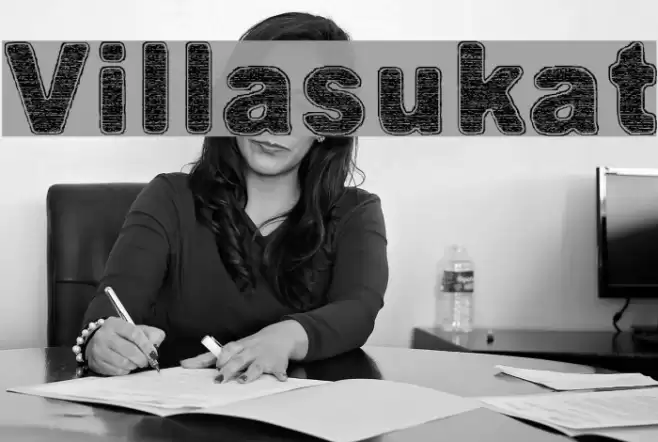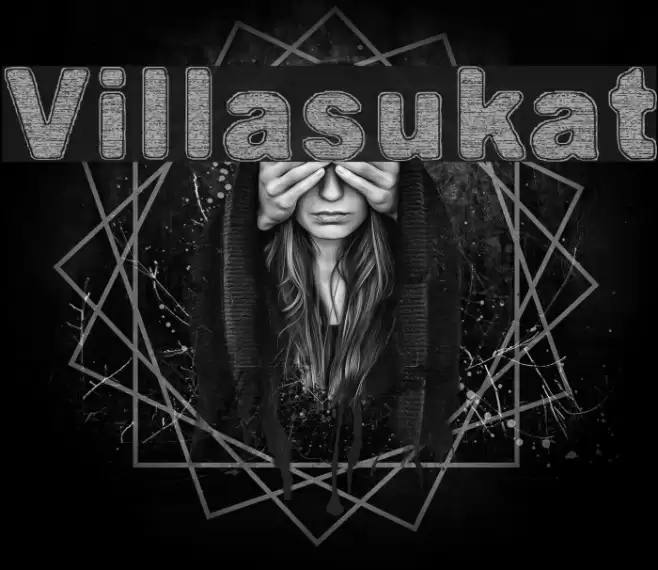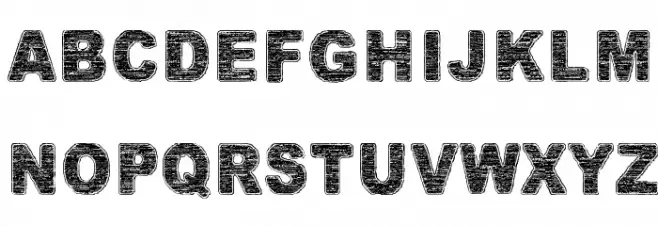
Villasukat Font
Villasukat Description
This font features a bold, textured style with a distressed, grunge-like appearance. Each character is filled with a rough, uneven pattern that gives it a unique, handcrafted look. The uppercase and lowercase letters maintain a consistent weight, while the numbers and special characters follow the same design principles. The font's boldness and texture make it stand out, adding a vintage or rustic feel to any design. Its distinct appearance is ideal for projects that require a strong visual impact.
A bold, textured font with a distressed, vintage appearance from Distorted Eroded fonts.
- Proposed Projects: Ideal for posters, album covers, branding, and any design needing a bold, vintage touch.
- Overall Style: Vintage